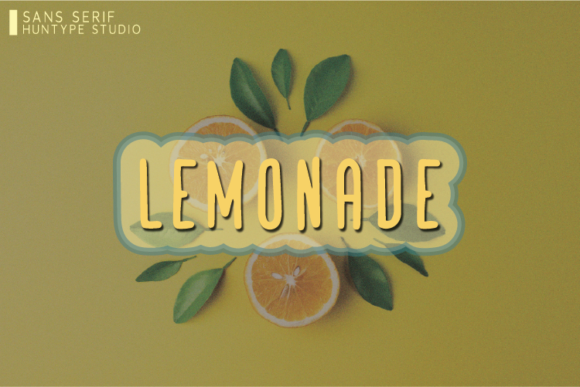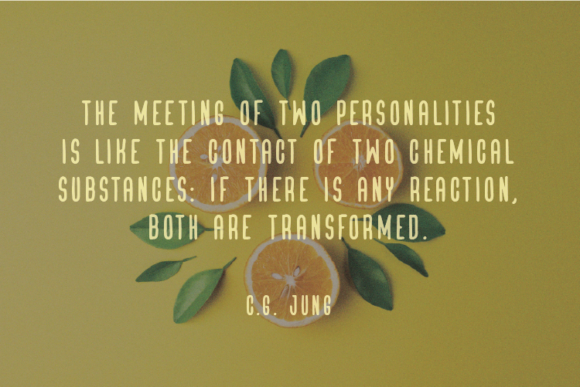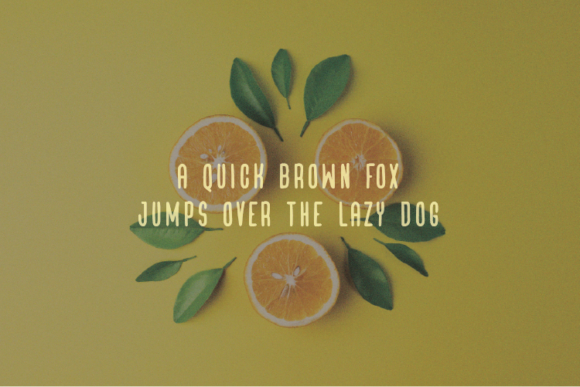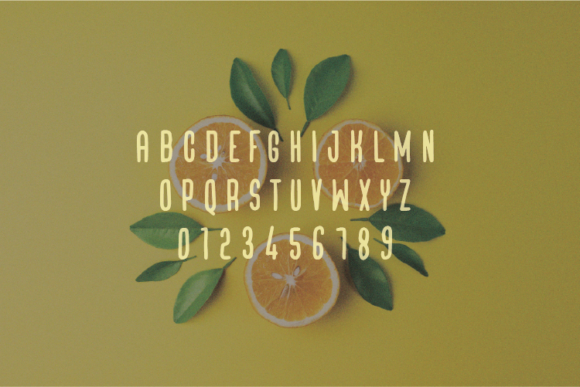
Lemonade Font
About Lemonade Font
Lemonade is a simple and neat handwritten font. This font is perfect for any design that requires a happy vibe. It also looks good when used on quotes, diaries, books, posters, and invitations.